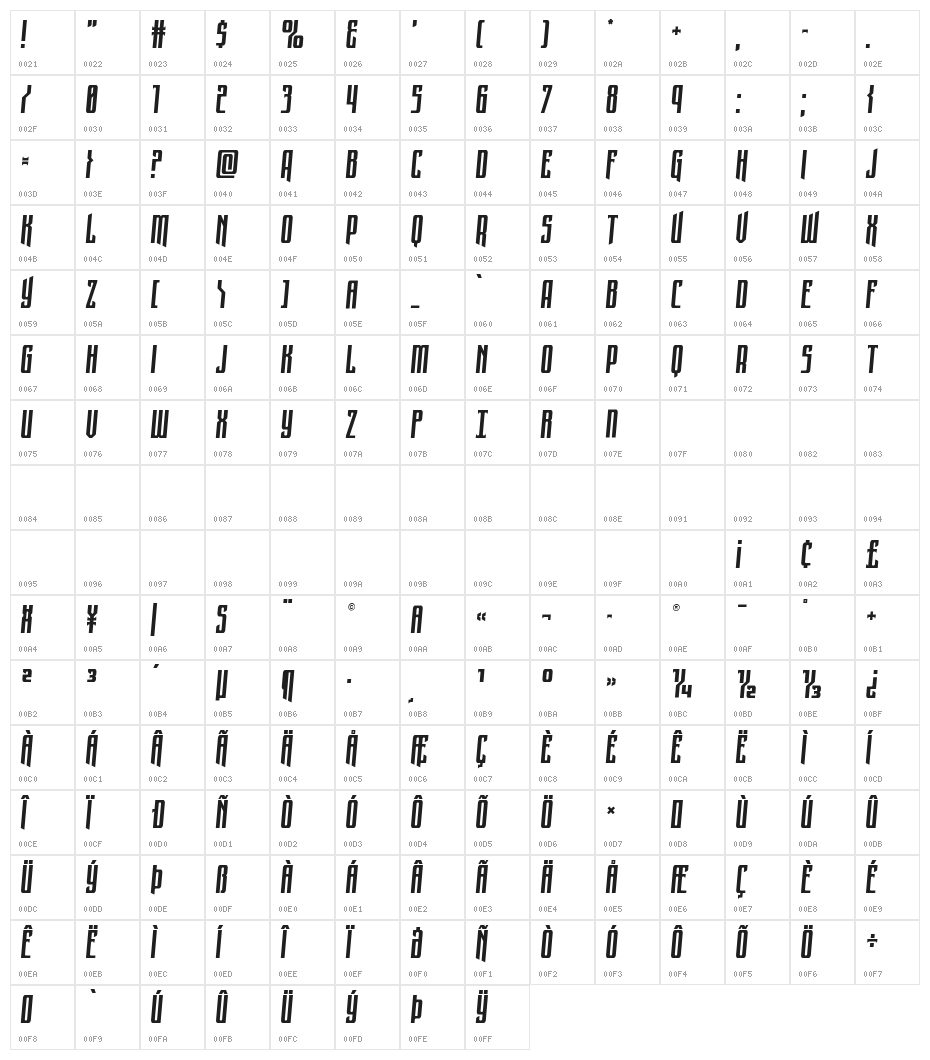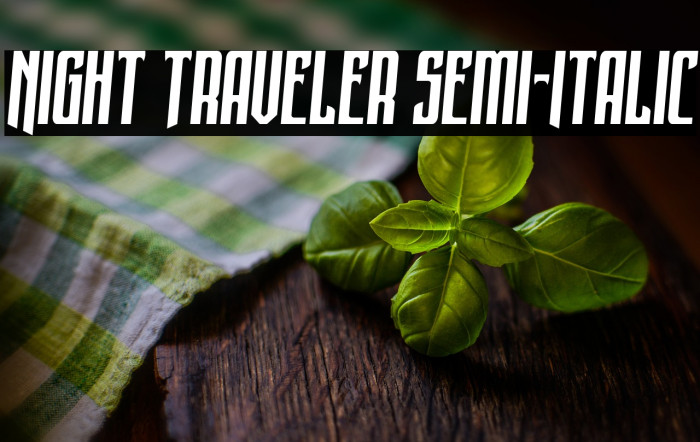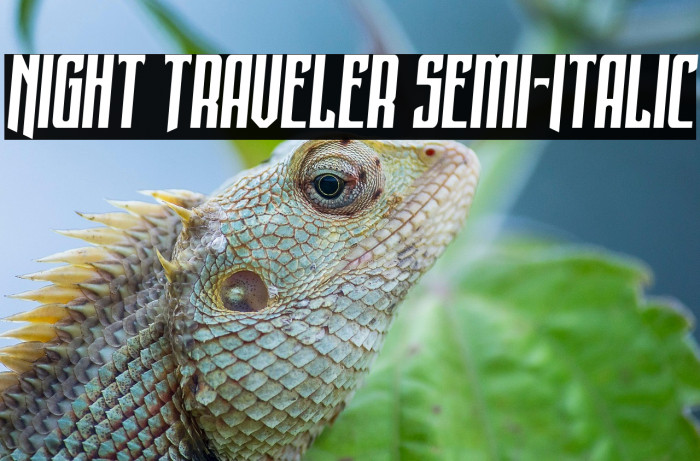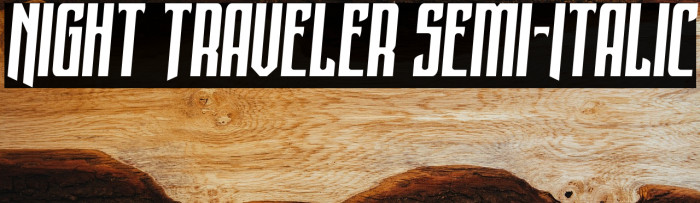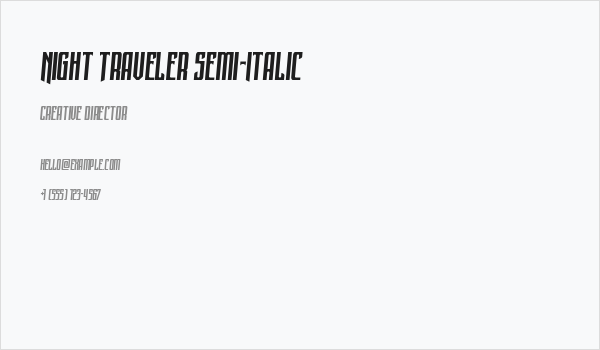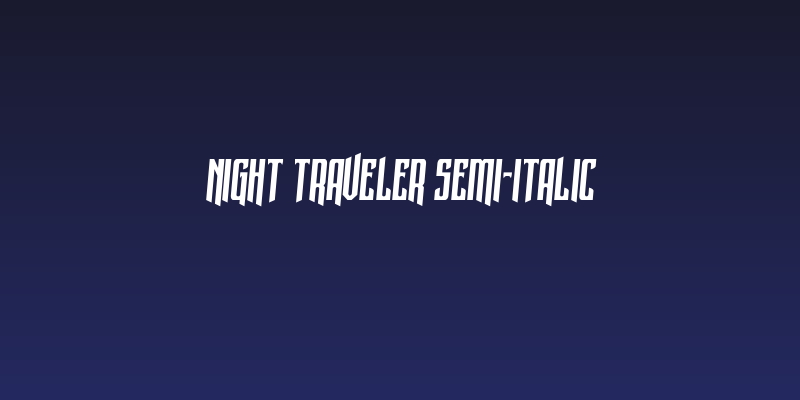
Night Traveler Semi-Italic Font
Night Traveler Semi-Italic Description
This font features a bold and dynamic style with a semi-italic slant, giving it a sense of movement and energy. The characters are tall and narrow, with sharp angles and clean lines that create a modern and edgy appearance. The uppercase and lowercase letters maintain a consistent height, enhancing the uniformity and sleekness of the design. The numerals and special characters are crafted to match the boldness of the alphabet, ensuring a cohesive look across all text elements. This font's unique style makes it suitable for projects that require a strong visual impact.
| Proposed Projects | Ideal for branding, posters, headlines, and any design needing a bold statement. |